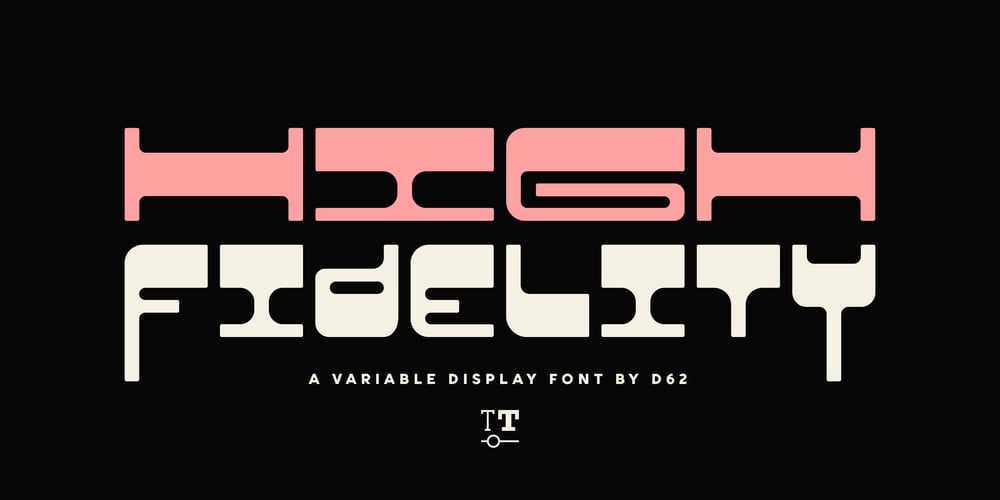
High Fidelity Font Family was designed by Megan Tamaccio, Aleksandar Veljasevic and published by District 62 Studio. High Fidelity contains 1 styles and family package options. High Fidelity is our funky new variable font that was inspired by an incredible vintage poster we saw at the NYPL (sadly, the designer wasn’t credited.) First we developed the ultra wide top-heavy style. Then, unable to resist the dynamics of variable type, we added the narrow width and violà our first variable font was born. We then added “drip” and “stretch” axes so you can play around and customize it to your heart’s content. We think it works for anything from album covers, posters, social media, apparel – really anywhere you need a fun, expressive look.